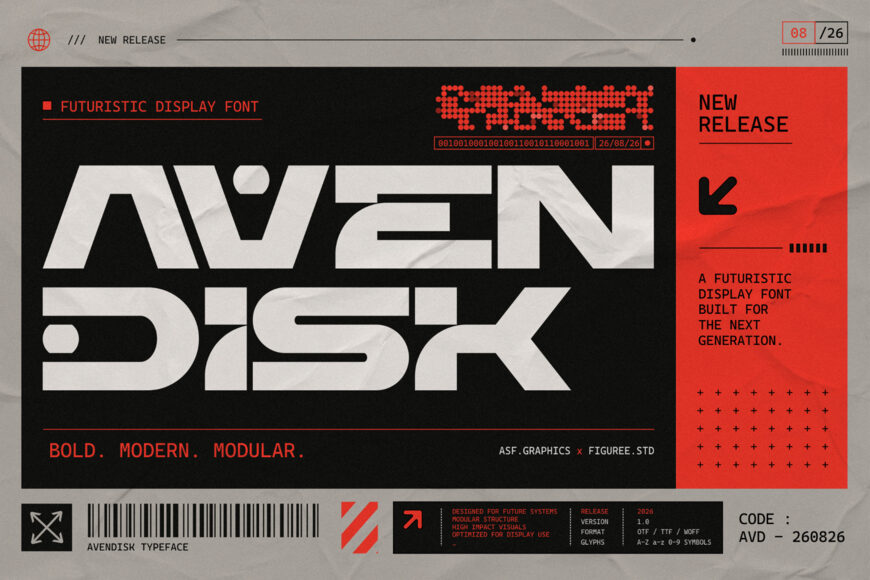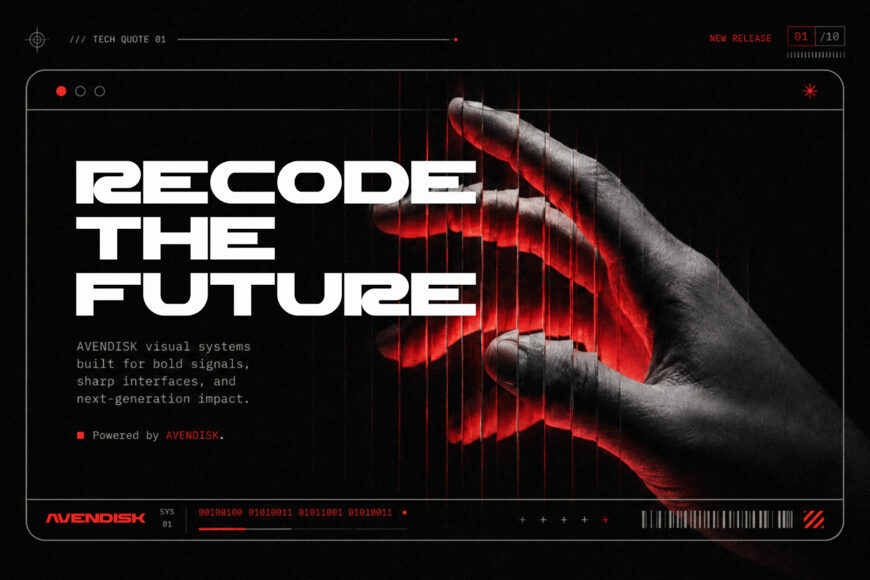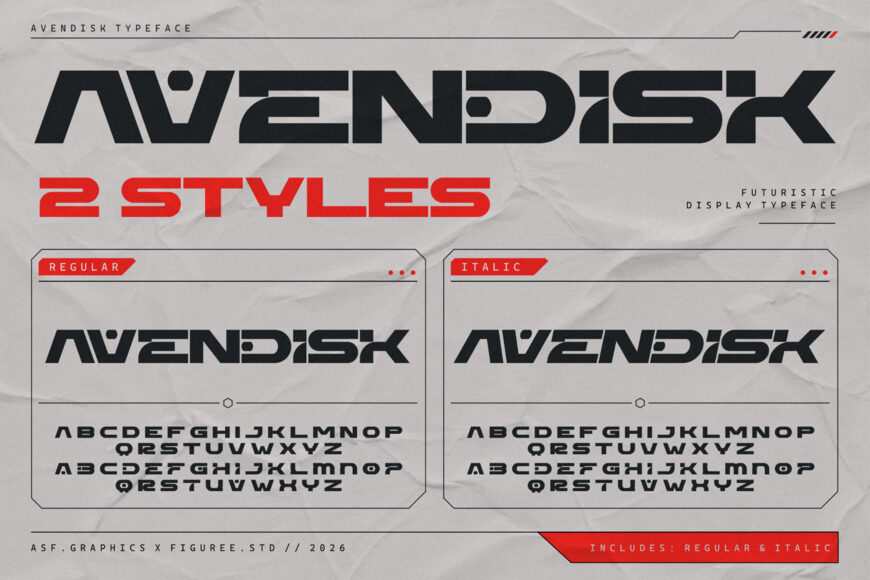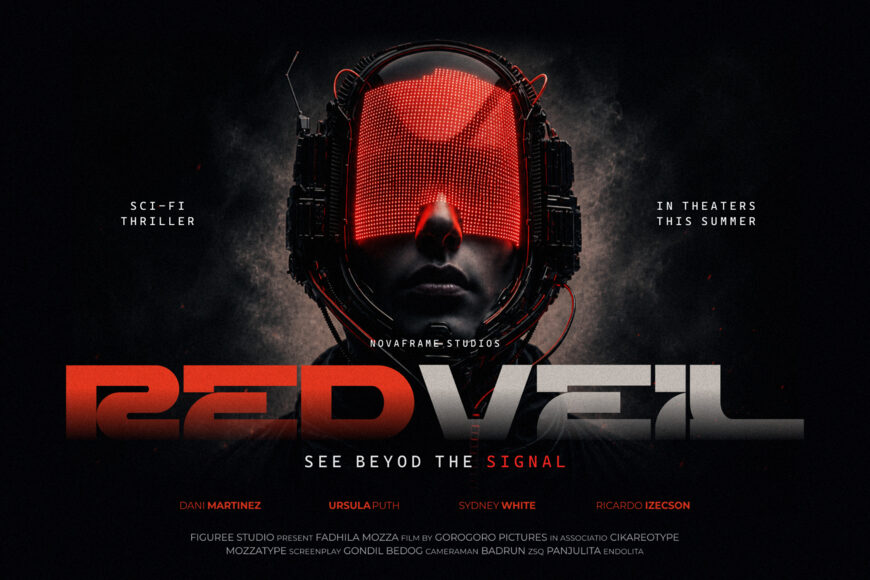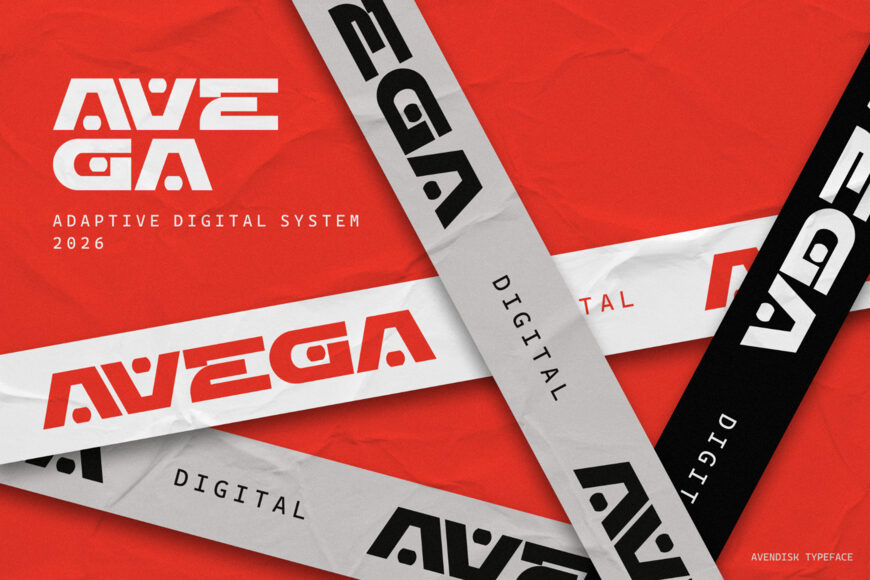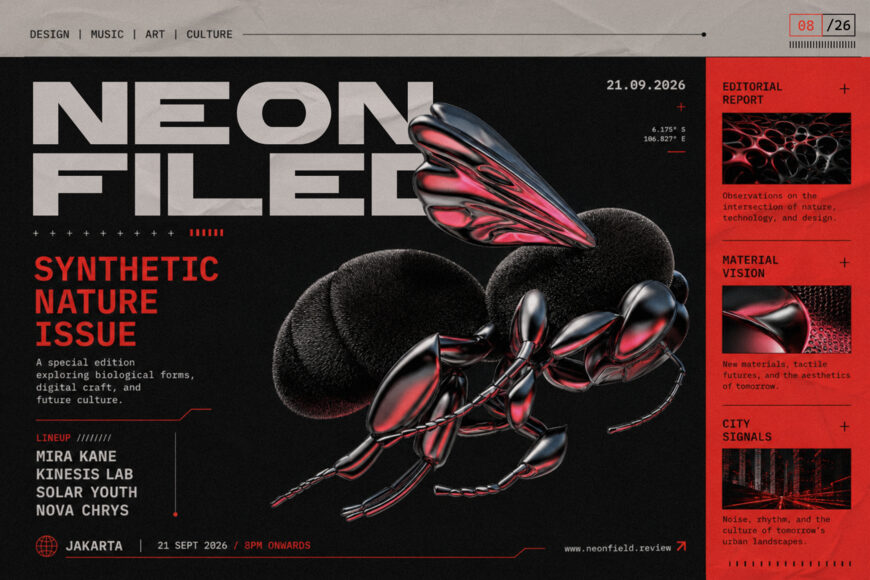
Avendisk Font
Avendisk is a futuristic display font designed for projects that demand a distinctive, modern presence. Ideal for graphic designers, branding professionals, studios, and digital creators, it brings confidence and a progressive edge to headlines and visual identities.
Its bold aesthetic suits branding, advertising, posters, campaigns, digital artwork, entertainment graphics, and other typography-led designs. The family includes regular and italic styles, offering a cohesive foundation with added movement, emphasis, and contrast. Avendisk is particularly fitting for technology, gaming, science fiction, innovation, digital culture, and contemporary brand projects.